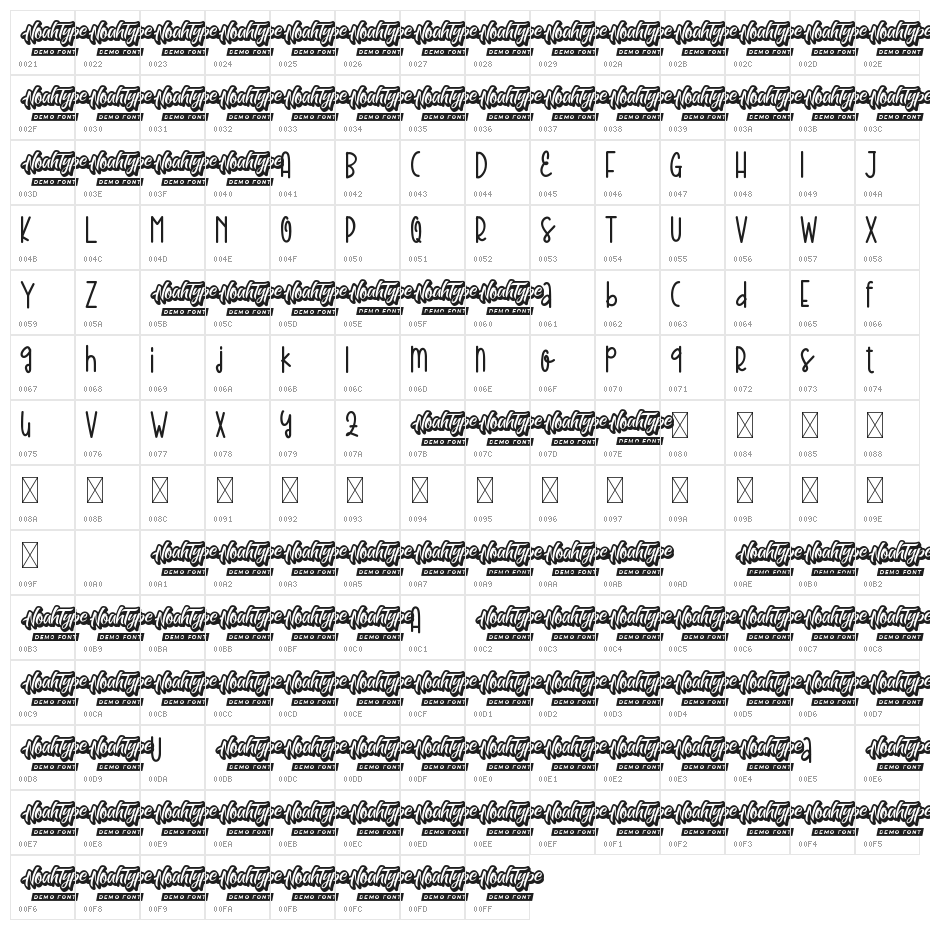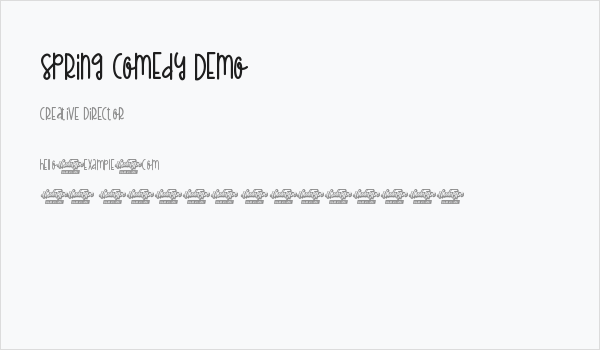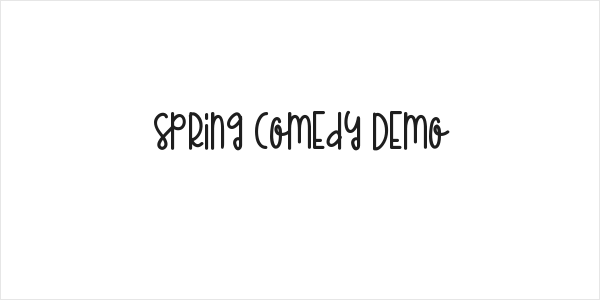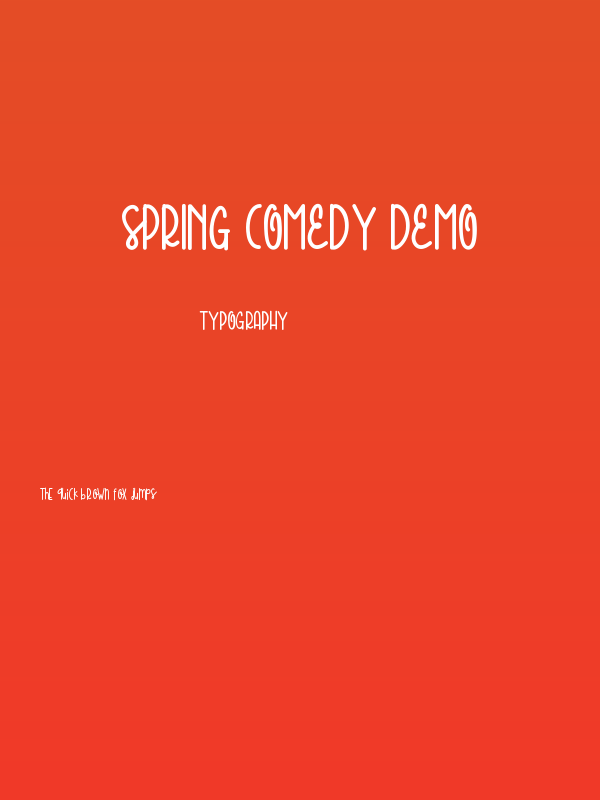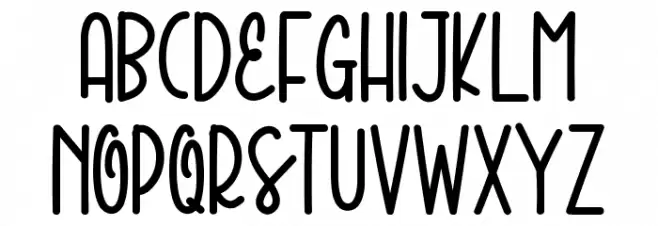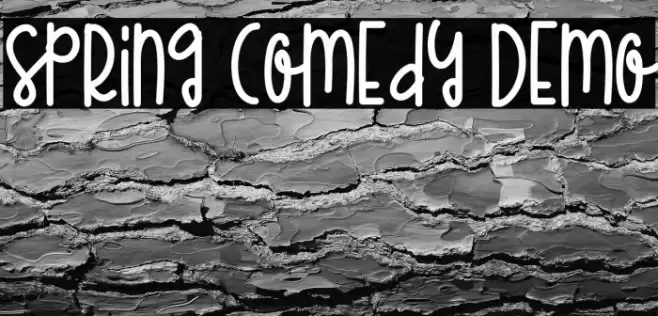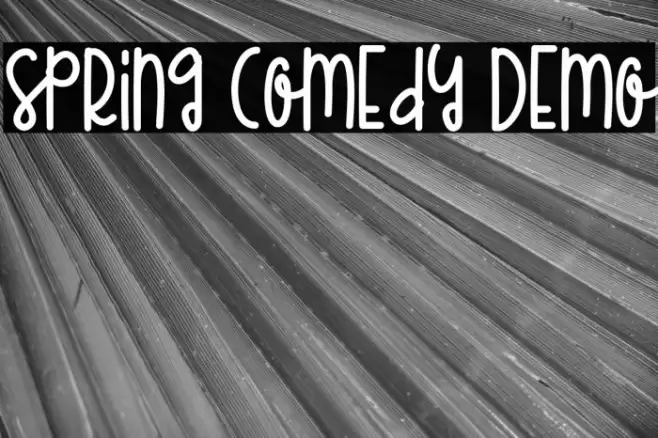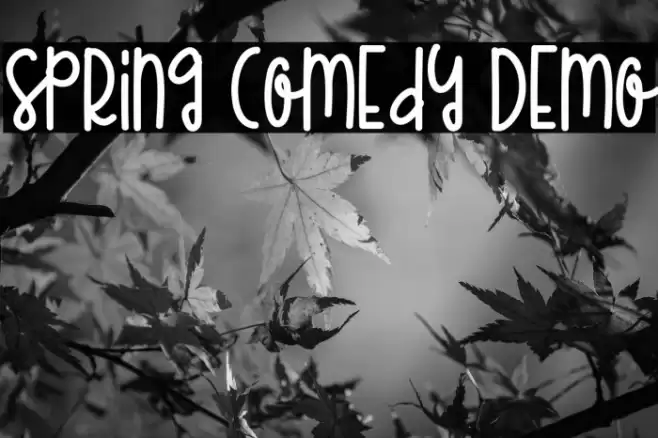
Spring Comedy Demo Font
Spring Comedy Demo Description
This playful and whimsical font features a hand-drawn style with rounded edges and a casual, friendly appearance. The letters are tall and slightly narrow, giving them a unique and approachable look. The strokes are consistent in thickness, providing a uniform appearance across all characters. The font includes both uppercase and lowercase letters, as well as numbers and a selection of special characters. Its informal style makes it ideal for projects that require a fun and lighthearted touch.
| Overall Style | Playful |
| Use Case | Headlines, Logos, Social media graphics |
| Proposed Projects | Ideal for children's books, greeting cards, playful branding, and social media graphics. |